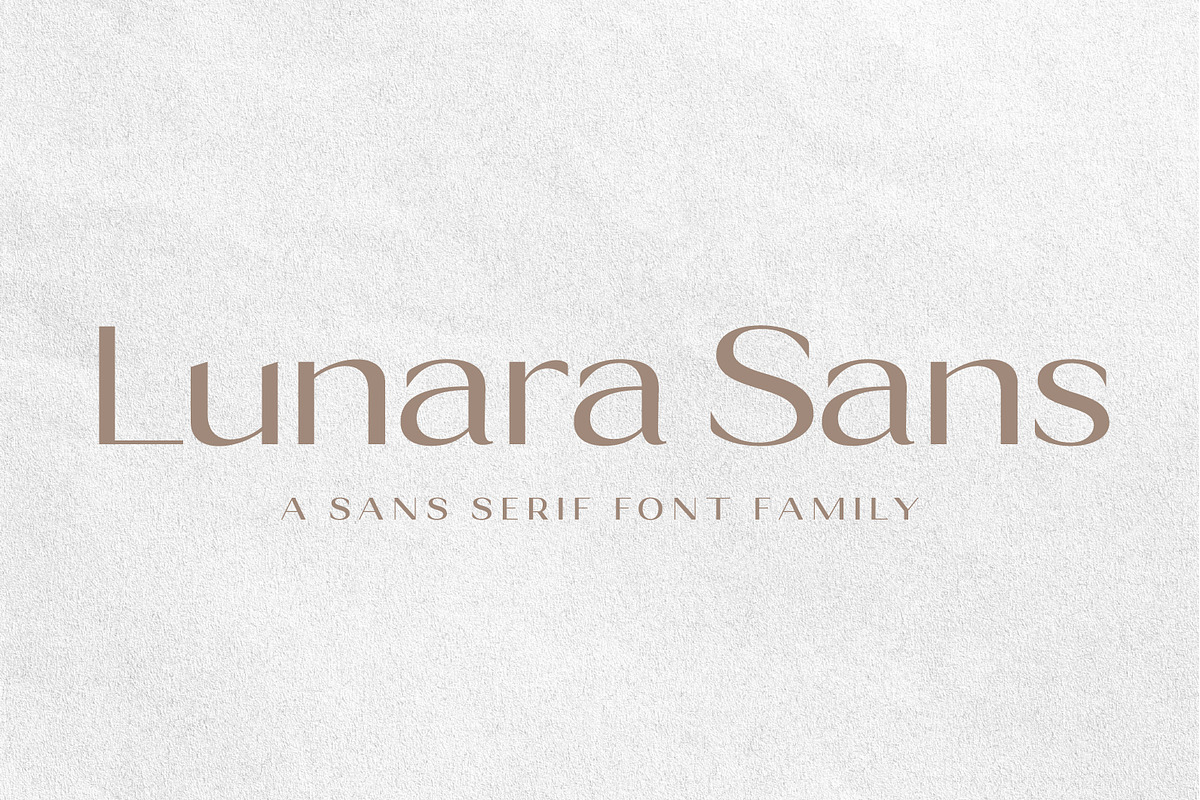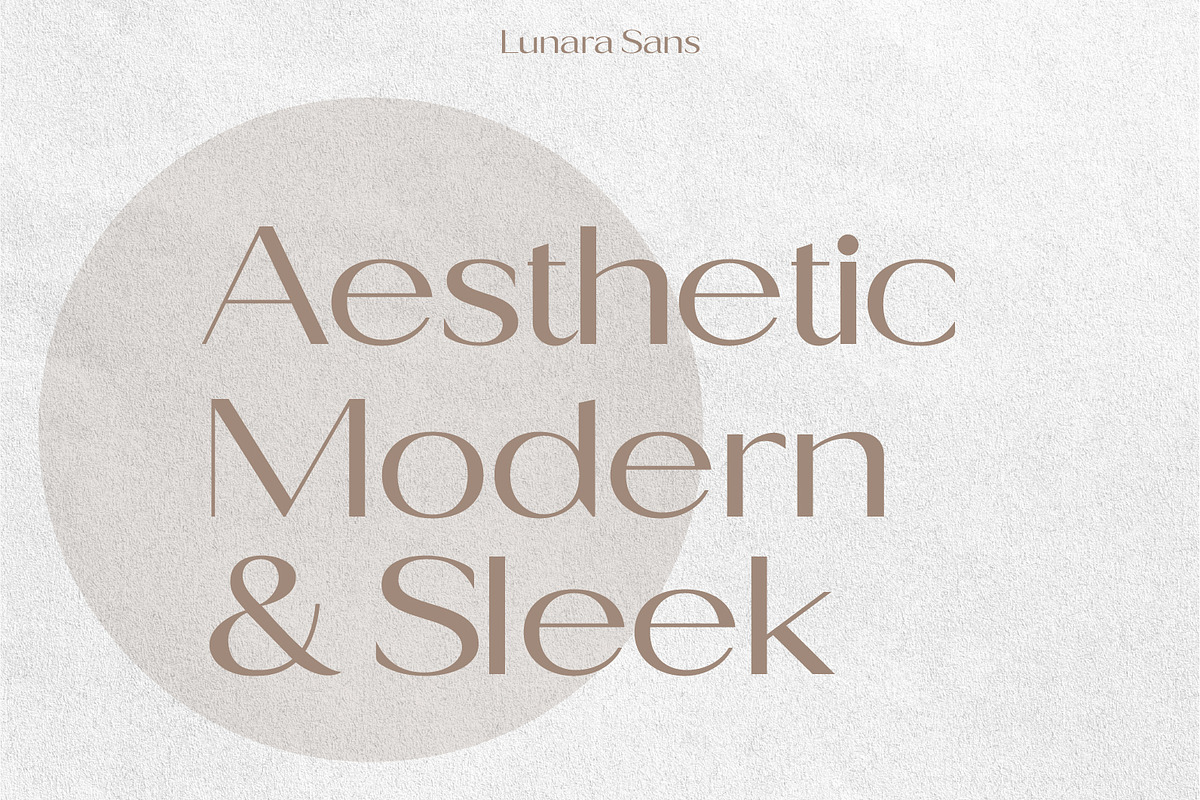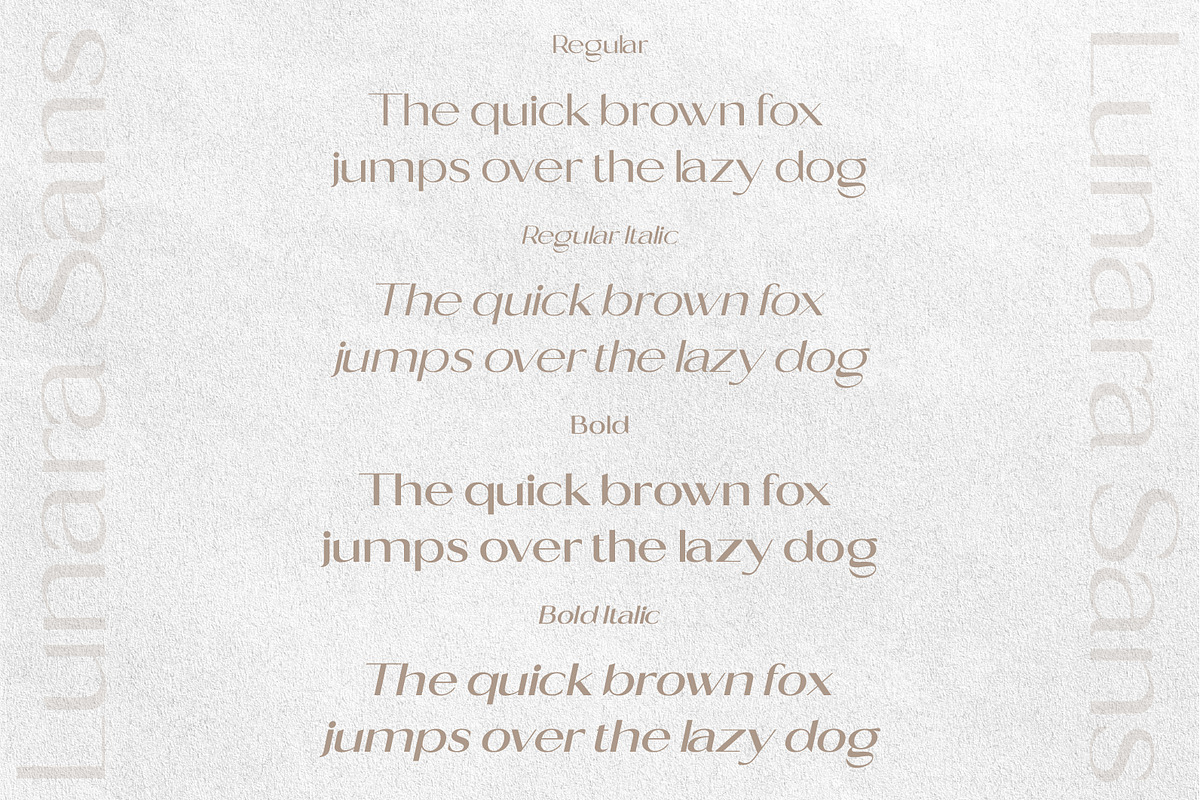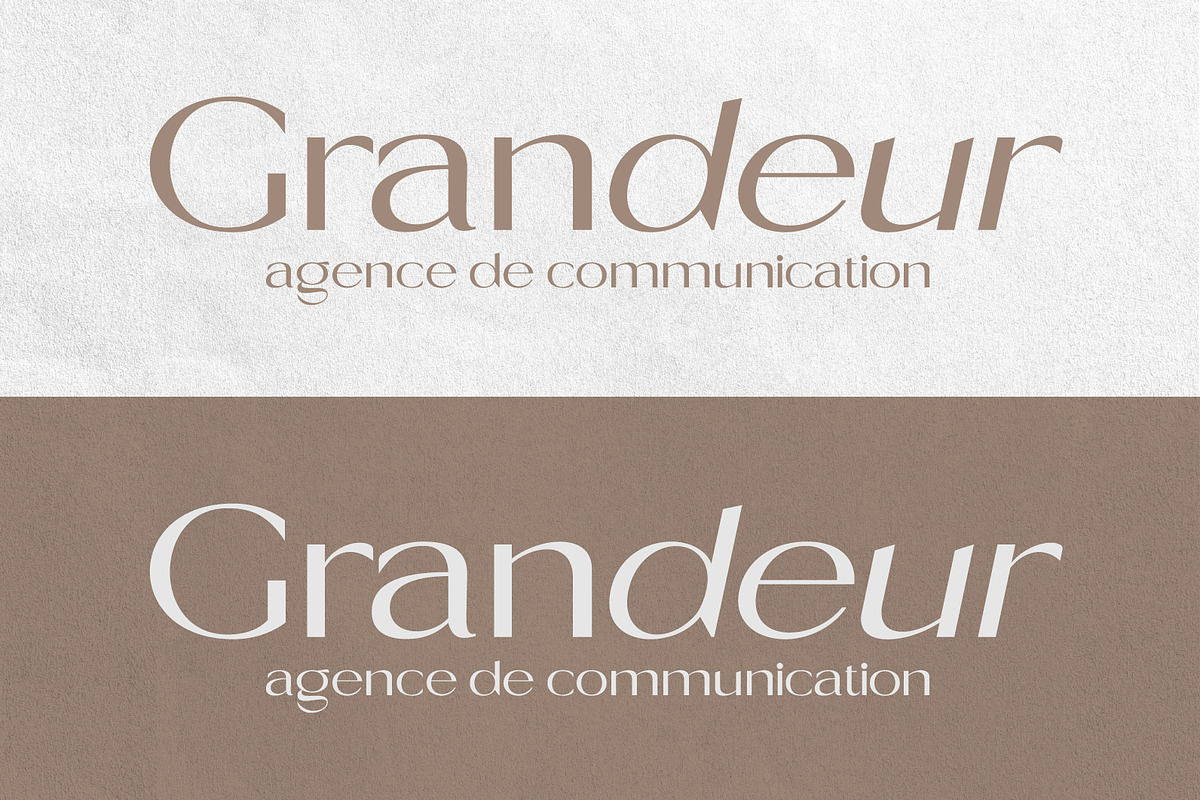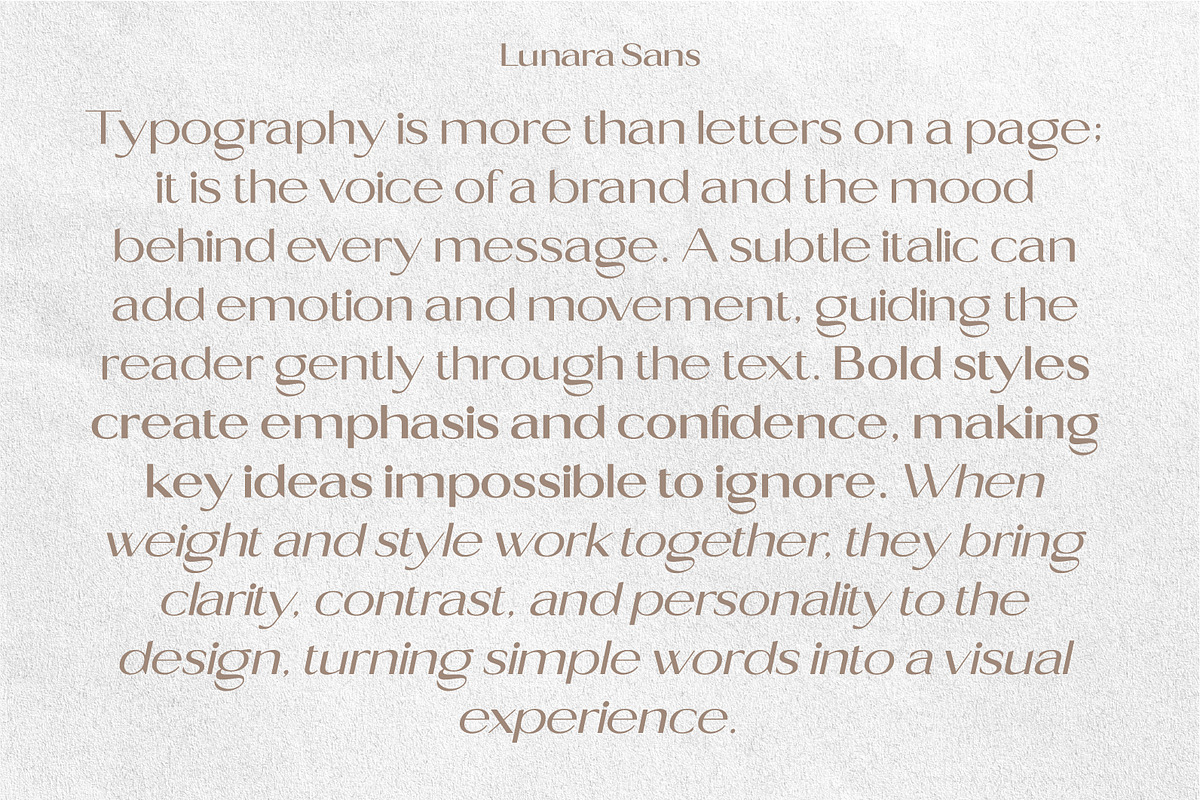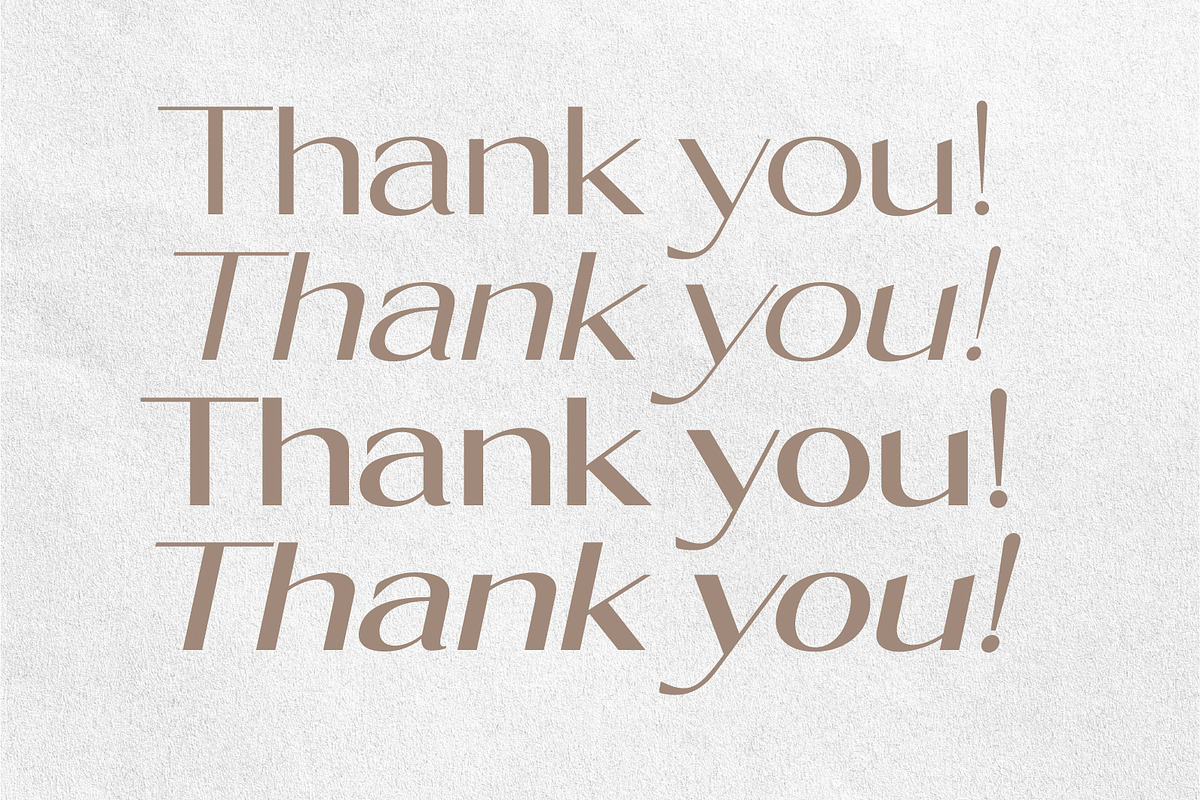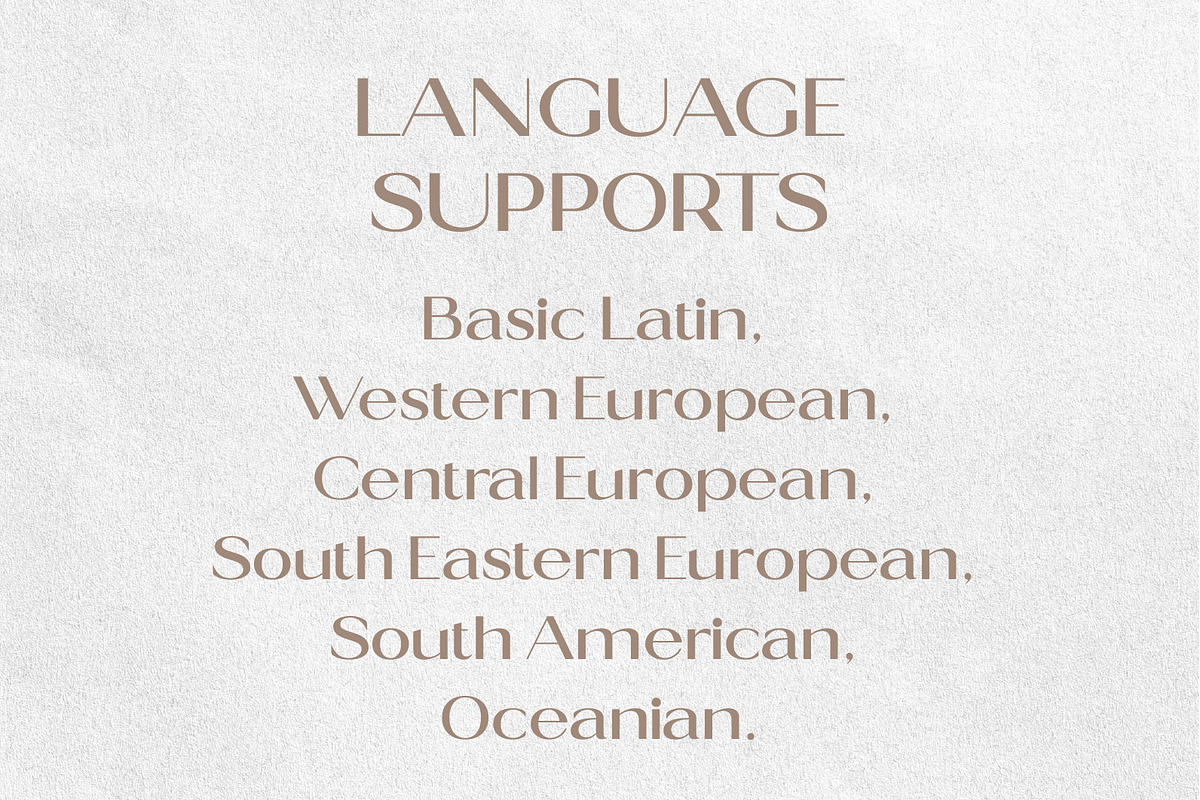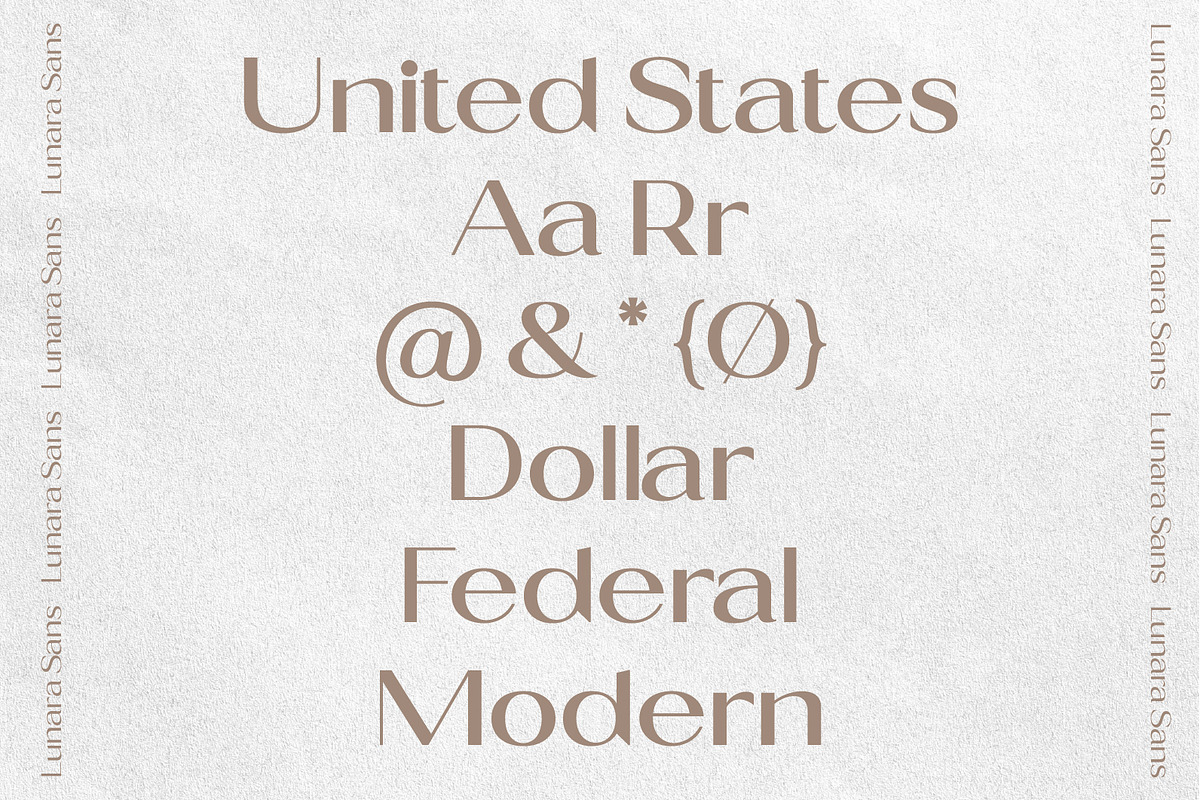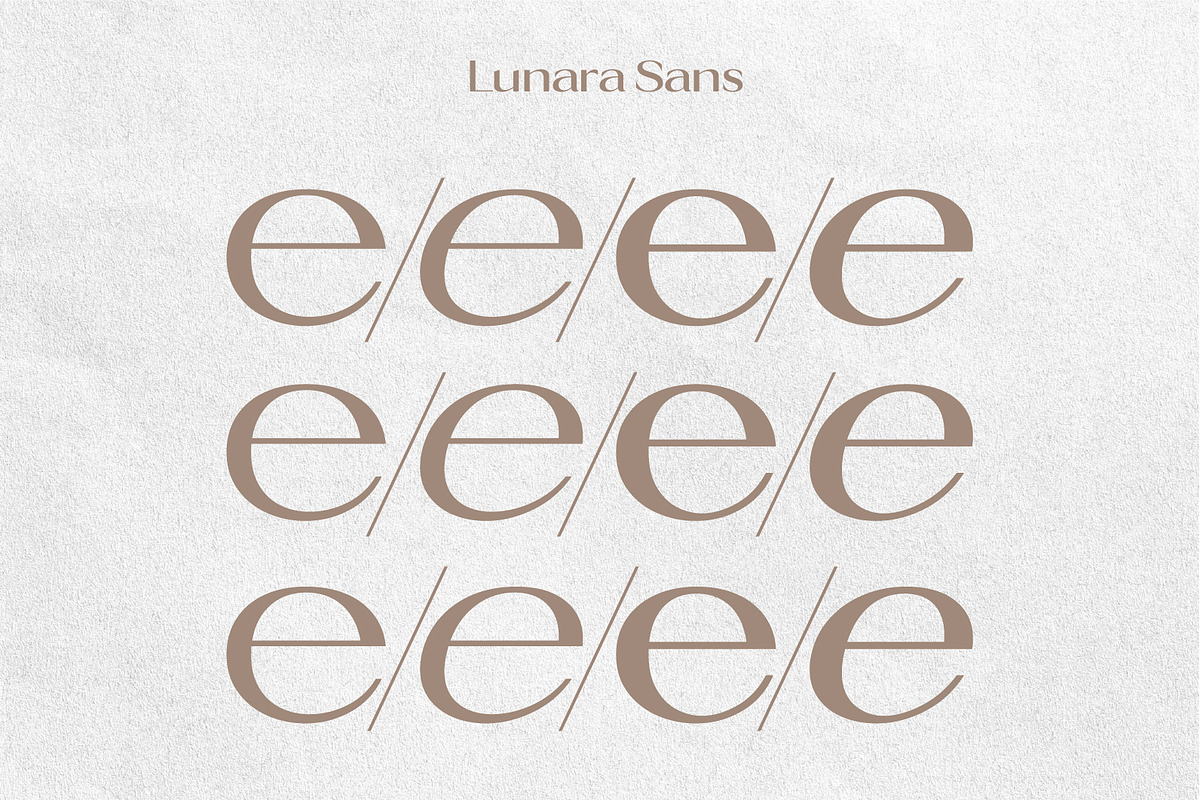
Lunara Sans
Lunara Sans is a sleek, elegant, and modern sans serif font family designed for clean aesthetics and professional impact. With its refined geometry and balanced letterforms, Lunara Sans delivers clarity, sophistication, and versatility across both digital and print projects.
This contemporary font family includes Regular, Italic, Bold, and Bold Italic, giving you full flexibility for branding systems, editorial layouts, websites, logos, and user interfaces. Whether you’re designing a luxury brand, modern startup, or minimal editorial piece, Lunara Sans adapts effortlessly while maintaining a polished, high-end feel.
✦ Perfect for:
• Branding & visual identity
• Logos & wordmarks
• Websites & UI/UX design
• Editorial layouts & magazines
• Social media graphics
• Presentations & marketing materials
✦ Font Features:
• Modern & elegant sans serif design
• Clean, minimalist letterforms
• Excellent readability at all sizes
• Professional and versatile style
✦ Language Support:
Lunara Sans supports a wide international character set, making it ideal for global projects:
• Basic Latin
• Western European
• Central European
• South Eastern European
• South American
• Oceanian
If you’re looking for a modern sans serif font that feels elegant, timeless, and professional, Lunara Sans is a strong, reliable choice for high-quality design work.